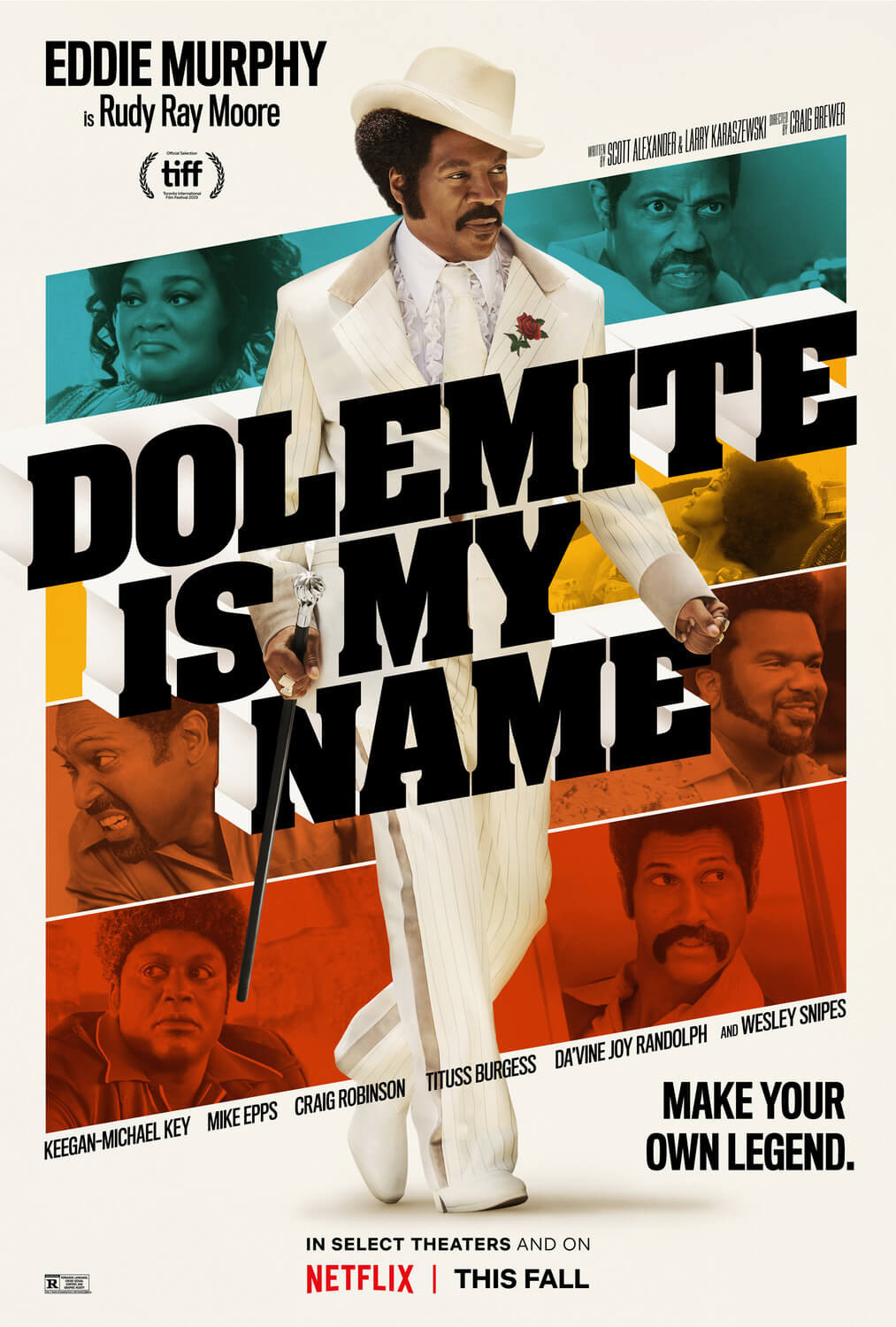
Dolemite Is My Name Font
BiographyDolemite Is My Name is a Netflix original film released in 2019. It is a biographical comedy-drama film about the life of comedian, actor, and musician Rudy Ray Moore, who is best known for his character Dolemite in the 1970s. The film stars Eddie Murphy as Rudy Ray Moore and follows his rise to fame as he creates and performs as Dolemite, a loud and brash stand-up comedian.
Neue Aachen Bold Italic is the font used for the movie's title. Released by Letraset in 1969, Aachen was created by Alan Meeks under the direction of Colin Brignall. Monotype's Jim Wasco expanded the italic and weight options. Neuer Aachen, the updated Aachen, now has nine weights and corresponding italic styles.